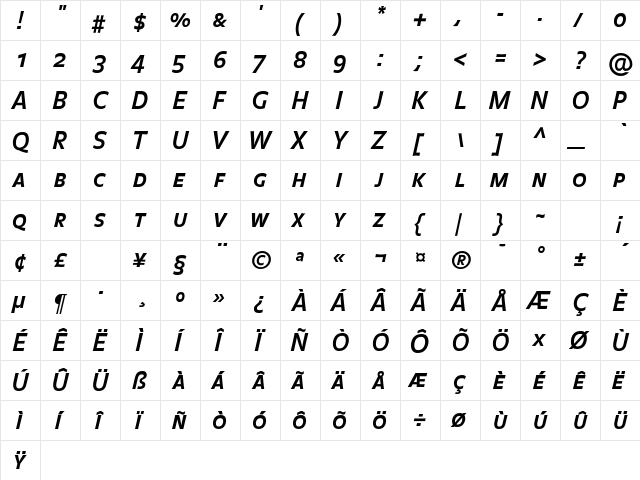
BalanceBold CapsItalic Font Preview
BalanceBold CapsItalic
Design Context for BalanceBold Typeface
BalanceBold is a composed and adaptable typeface that performs quietly and consistently across a wide range of design contexts. The dynamic lean of this cut emphasises speed and emphasis in any layout. The heavy weight commands attention and anchors typographic hierarchies.
Pro Tip: Try BalanceBold for annotation and caption copy alongside an upright companion — the contrast in angle creates a dynamic but ordered typographic system.